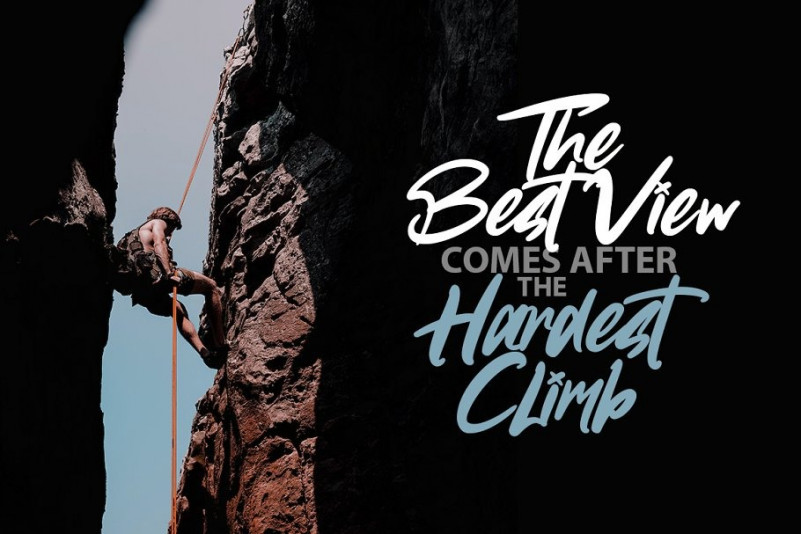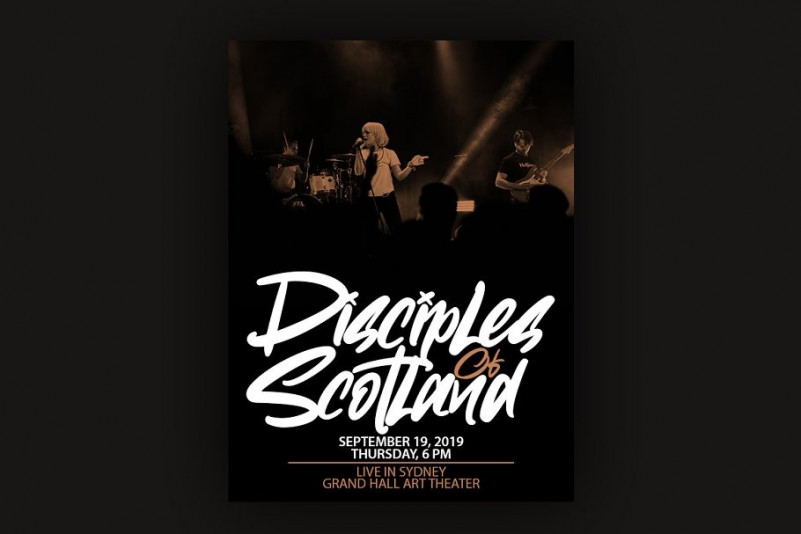
Omesh Brush Font
Omesh is a lovely and timeless handwritten font. It is the best choice for creating eye catching logos, branding and quotes. Every letter has a unique and beautiful touch, which will make your design come alive!